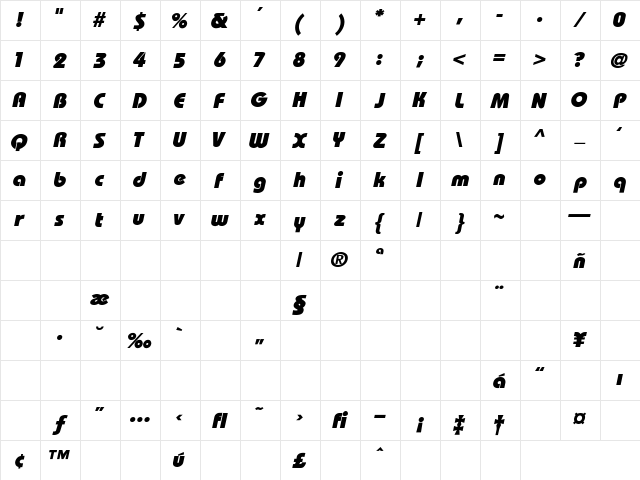
Bahamas_HeavyX Regular
Design Context for Bahamas_HeavyX Typeface
Bahamas_HeavyX offers clean, dependable letterforms without strong stylistic allegiance, making it a practical choice for designers who need flexibility.